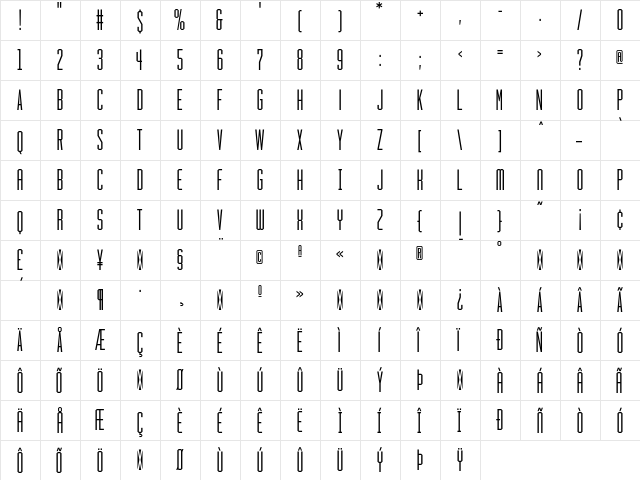
HeraldGothic Medium
Design Context for HeraldGothic Typeface
HeraldGothic has the quiet confidence of well-executed sans-serif typography: versatile, unobtrusive, and dependable at any size.
Font Pairing: Works well alongside a characterful serif or display font that can carry the expressive load while HeraldGothic handles the functional copy.
Pro Tip: Use HeraldGothic for UI labels, navigation, and short-form body copy where clean legibility is the priority.